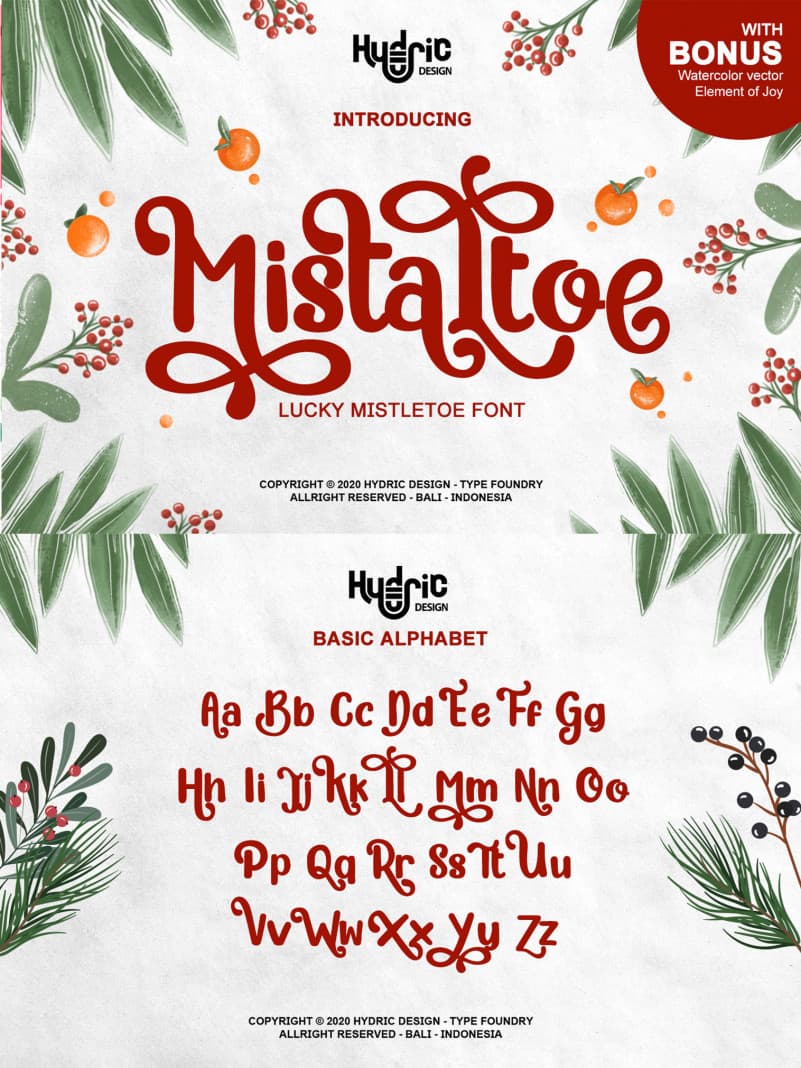
Mistaltoe Display Font is a elegant San serif font that blends traditional influences into a contemporary aesthetic.
Mistaltoe offers you a Floral & joyful to your design projects. Suitable for book/novel or movie title, logos & branding, social media posts,advertisements & product designs, etc.